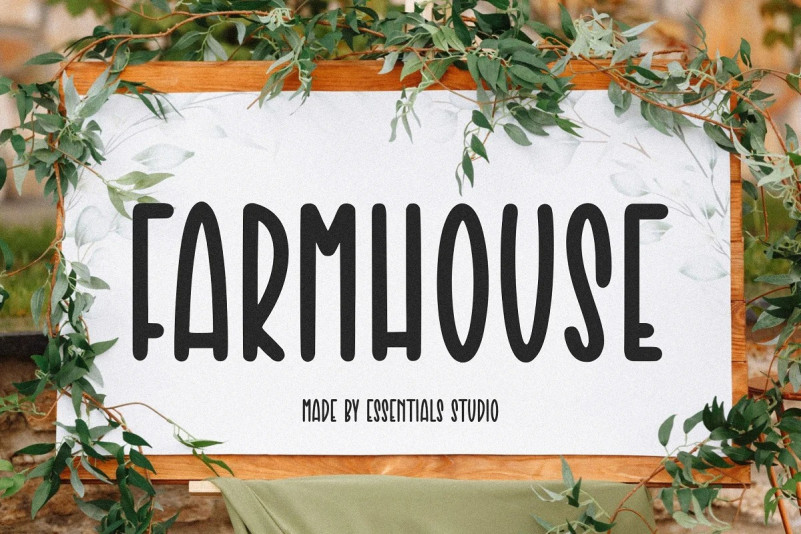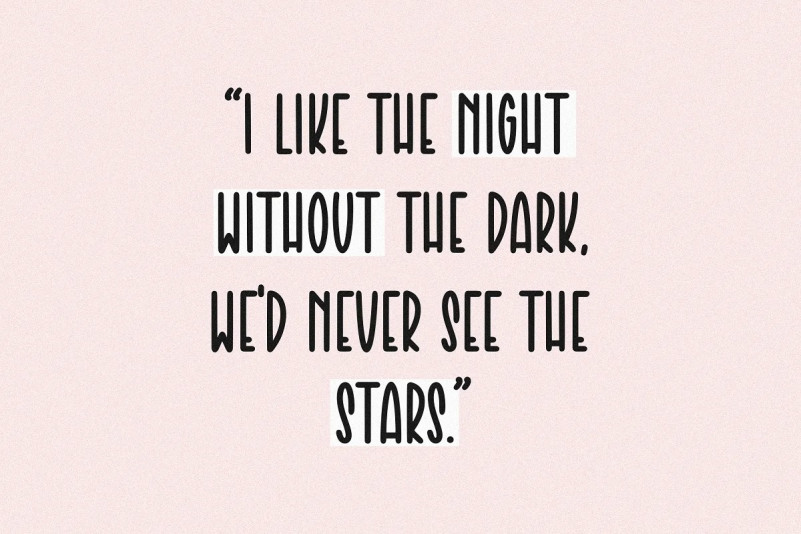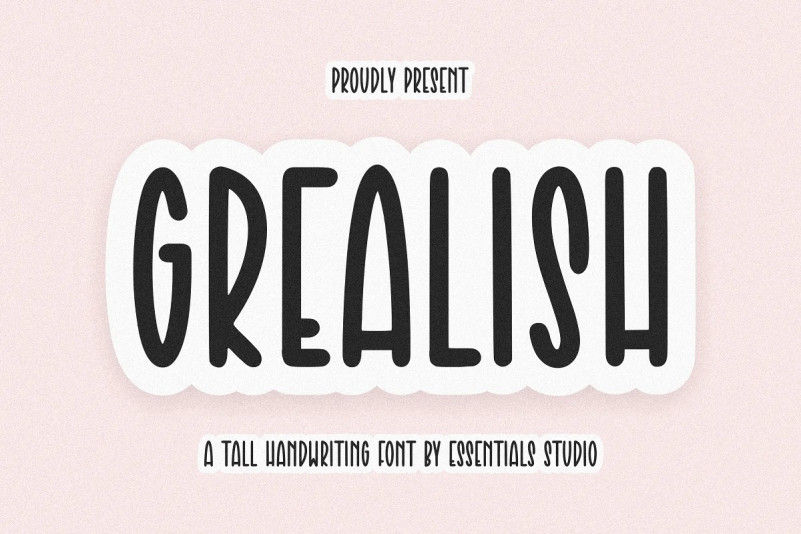
Grealish Font
Hello Everyone, introduce our new product, Grealish Font is a tall handwritten font
Grealish is perfect for product packaging, branding projects, magazines, social media, weddings or just used to represent words above the background.